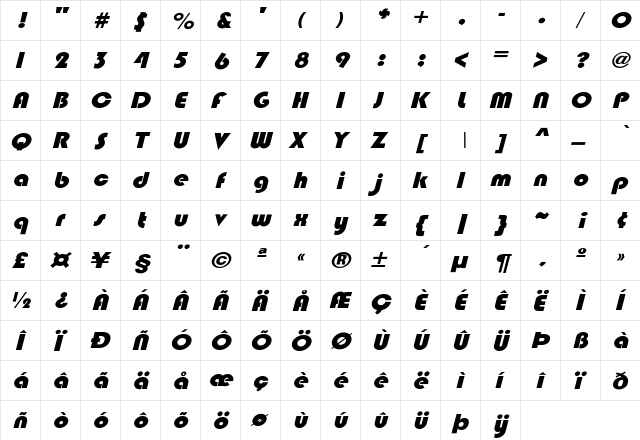
Hip Hop Italic Regular
Design Context for Hip Hop Italic Typeface
Hip Hop Italic takes a measured approach to typography — its balanced proportions and neutral character make it a reliable workhorse for both digital and print work. The slanted form adds forward momentum and visual energy.
Pro Tip: Use Hip Hop Italic for emphasis, pull quotes, and subheadings where its slanted energy can add rhythm to the layout.